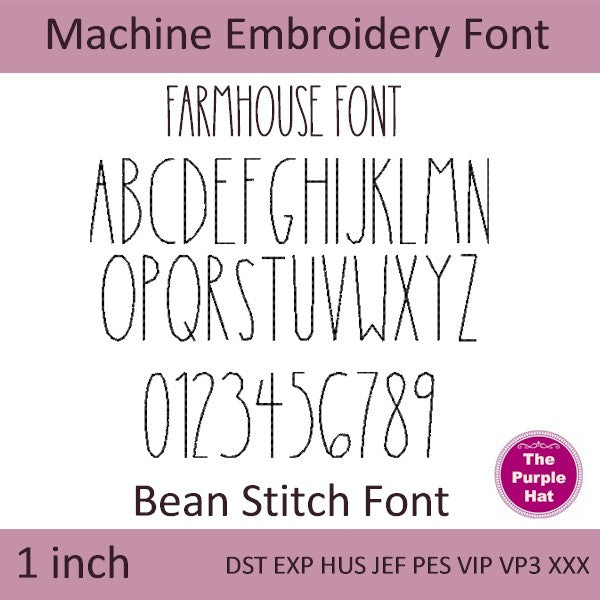
Farmhouse bean triple stitch machine embroidery font 1 inch
š” Farmhouse Triple Stitch Font
A cozy and classic font, perfect for adding farmhouse charm to your embroidery projects!
šName: FarmhouseĀ
š Uppercase Letters: A-Z
š¢ Numbers: 0-9
š Size: 1 inch
⨠Style: Triple stitch for a soft, rustic look